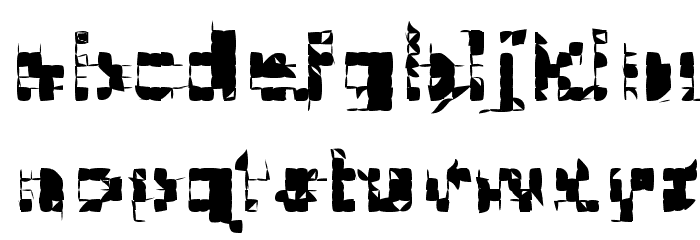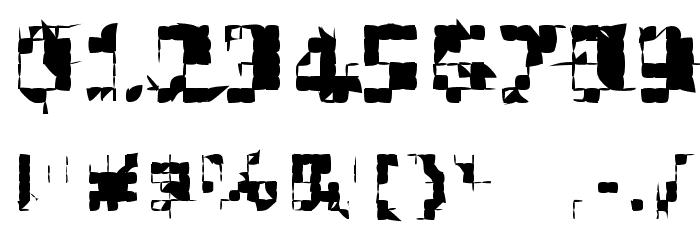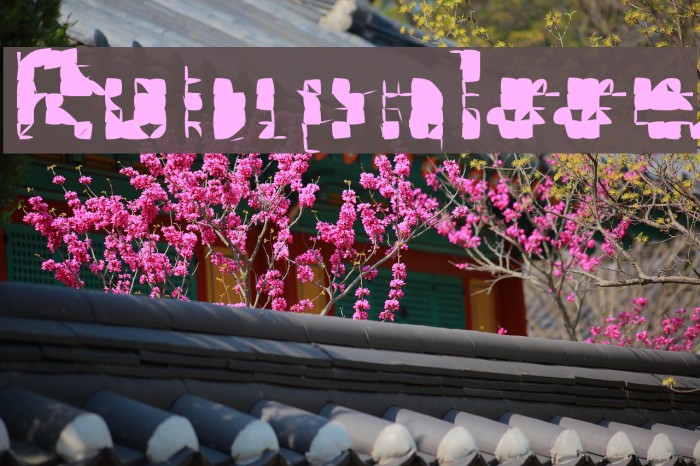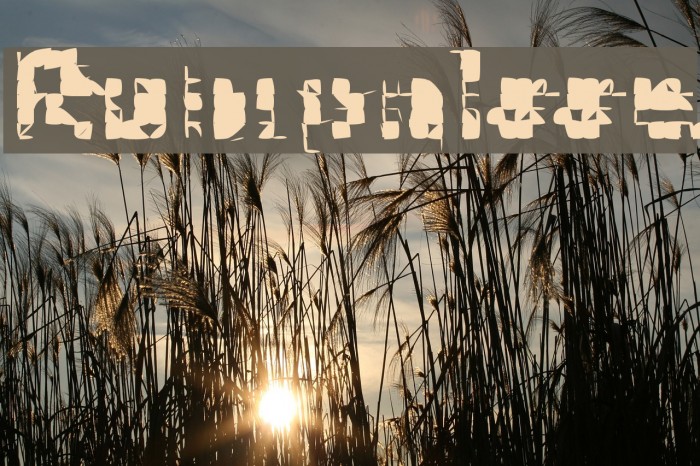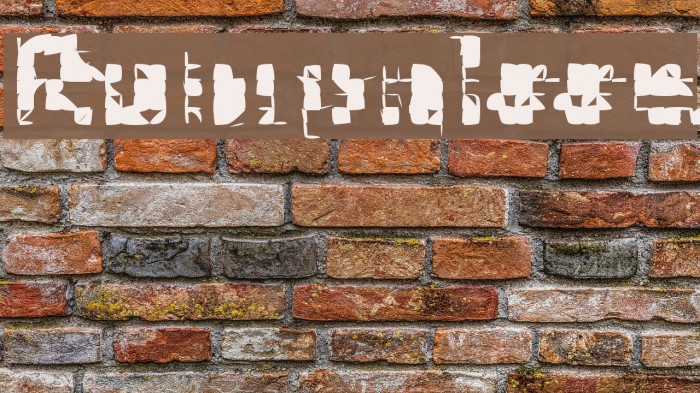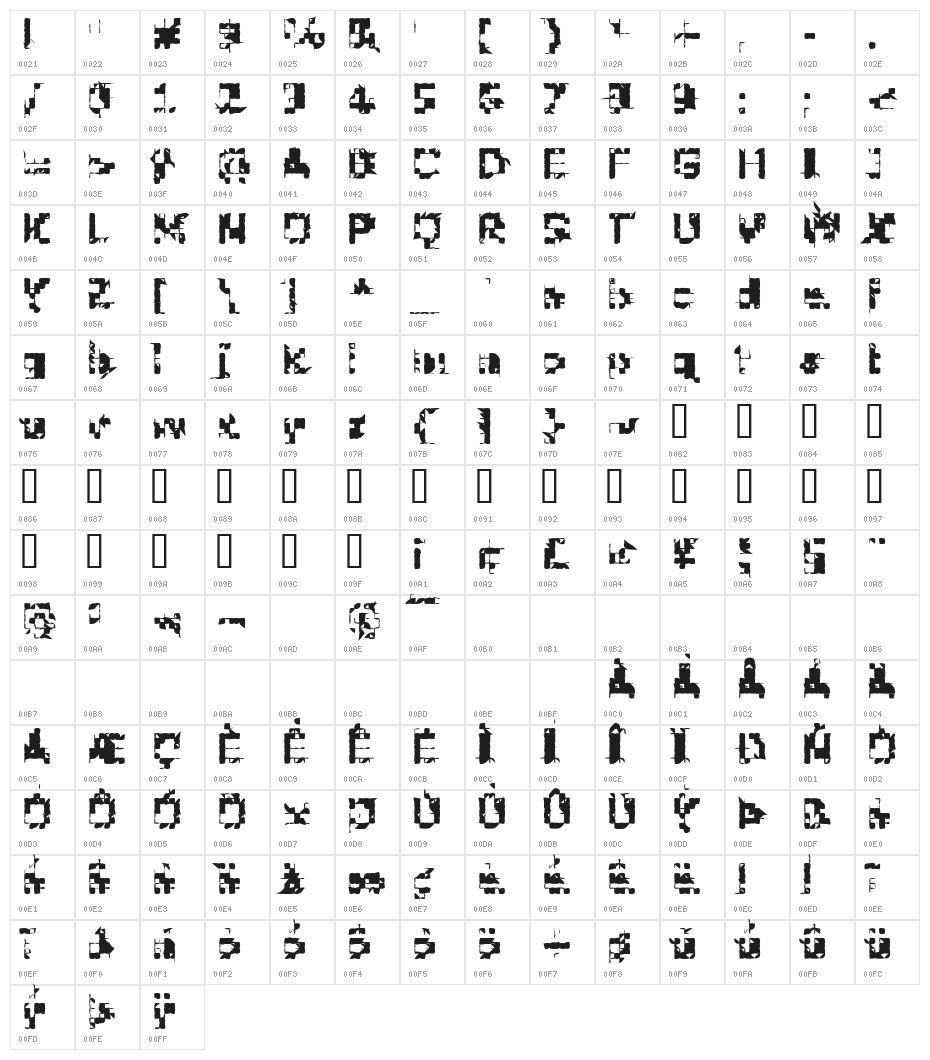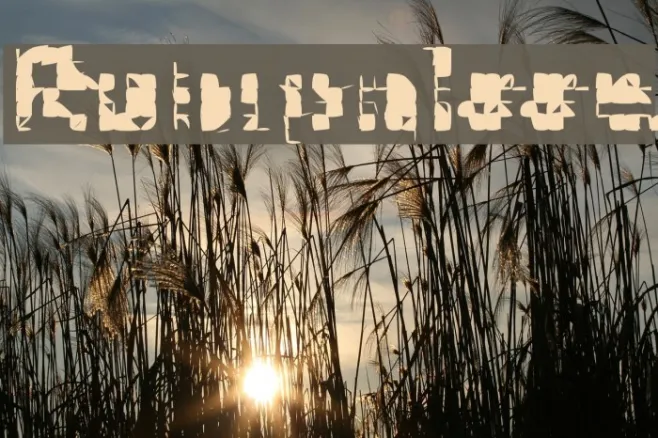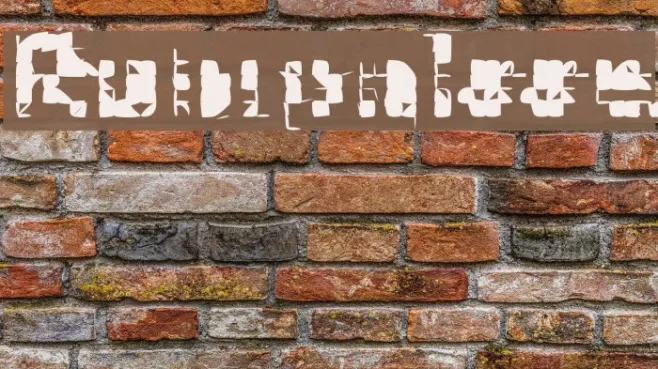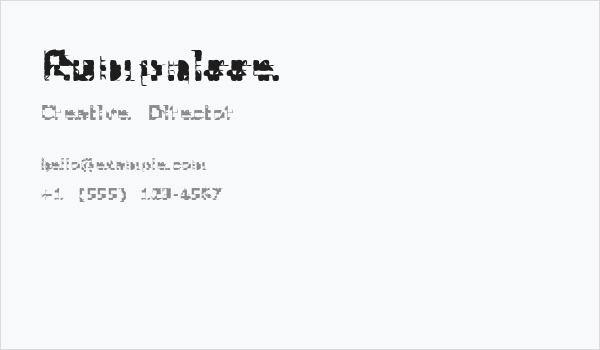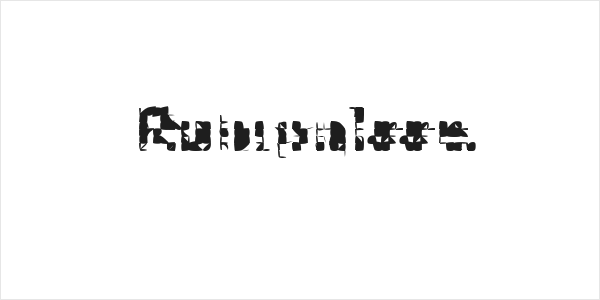
Rumpnisse Font
This font features a highly distressed and fragmented appearance, giving it a unique, chaotic aesthetic. The characters are bold with irregular edges and a rough texture, suggesting a sense of decay or erosion. Each letter and number appears to be partially obscured or broken, creating a visually striking effect that draws attention. The font's design is reminiscent of urban graffiti or abstract art, making it suitable for projects that aim to convey a sense of rebellion or unconventional style. The overall look is both modern and edgy, with an emphasis on artistic expression.
A bold, distressed font with a fragmented, graffiti-like appearance.
- Proposed Projects: Ideal for album covers, street art-inspired designs, posters, and edgy branding projects.
- Overall Style: Modern, Edgy, Artistic
- Use Case: Logos, Posters, Artistic Projects